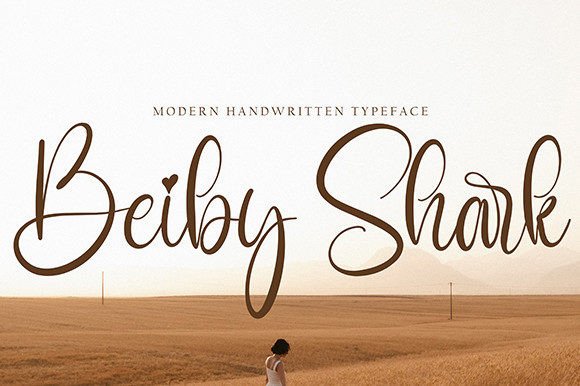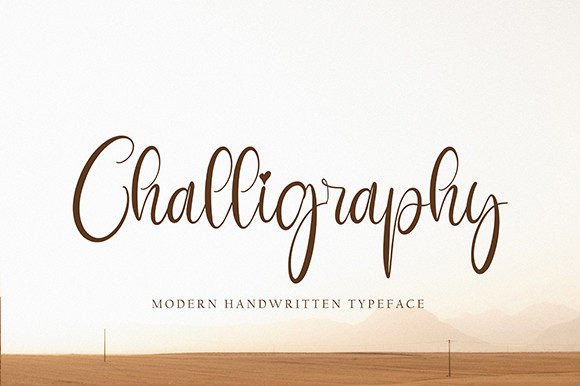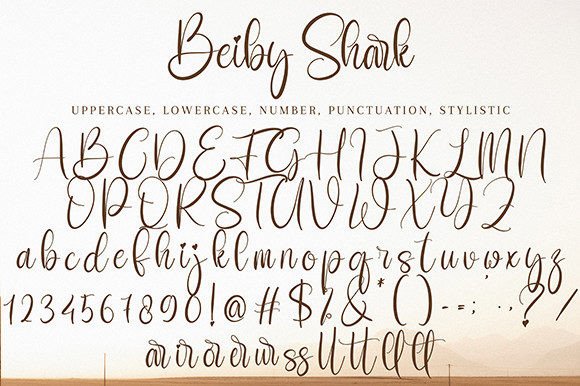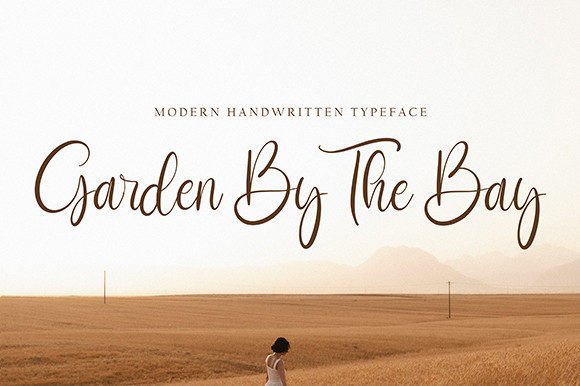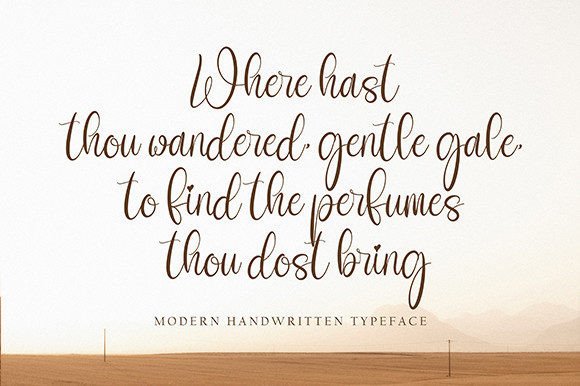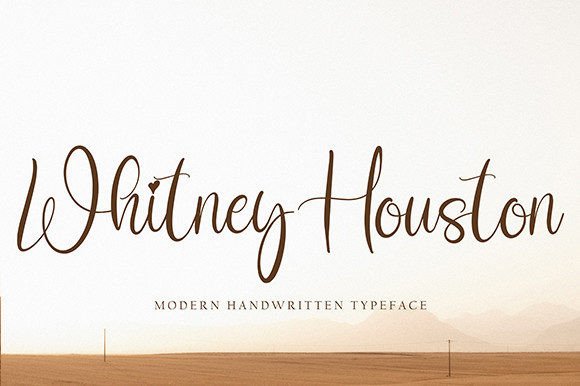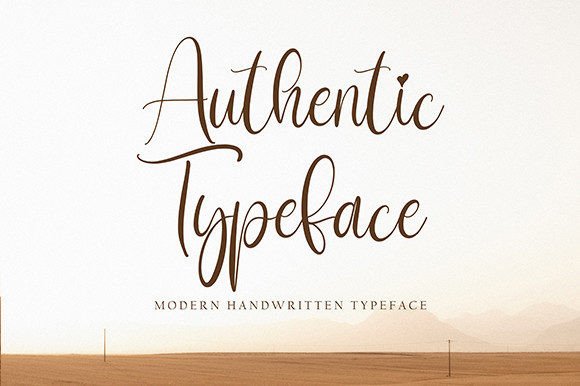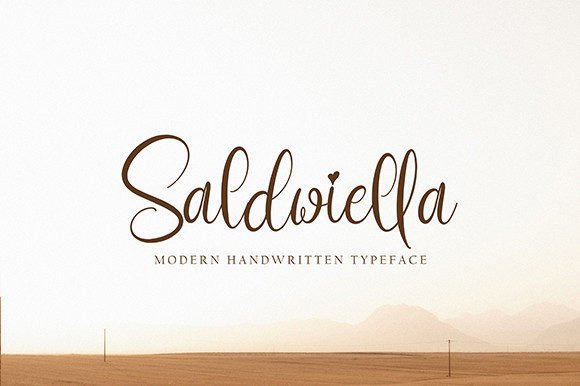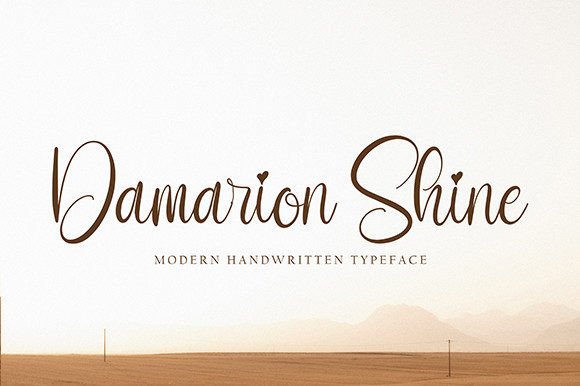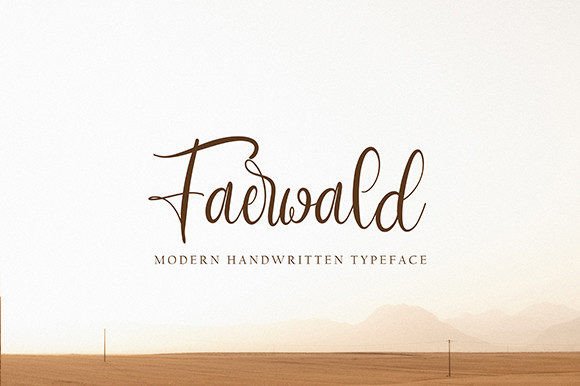
Beibyshark Font
About Beibyshark Font
Introducing “BeibyShark,” a font that effortlessly combines cuteness and charm in a delightful script style. This adorable typeface is not just versatile but also adds a romantic feel to a wide spectrum of projects, from greeting cards to headlines. “BeibyShark” is designed to infuse a sense of sweetness and playfulness into your next creative venture.
The cuteness factor of “BeibyShark” is evident in its script design, which adds a touch of whimsy to your text. The font’s versatility makes it suitable for a range of applications, from creating heartwarming greeting cards to making headlines that capture attention.
This font goes beyond being just a typographic choice; it’s a design element that brings a sense of joy and romanticism to your projects. The playful nature of “BeibyShark” makes it perfect for conveying a light-hearted and friendly vibe.
Whether you’re crafting invitations, designing playful headlines, or working on any project that demands an adorable touch, “BeibyShark” rises to the occasion. Its ability to add a romantic feel makes it an excellent choice for projects that celebrate love and affection.
In summary, “BeibyShark” is more than just a font; it’s a charming companion for your creative endeavors. Its cuteness and versatility make it suitable for a variety of applications, bringing a romantic and playful touch to your next project. Let “BeibyShark” be the font that adds joy and sweetness to your designs.